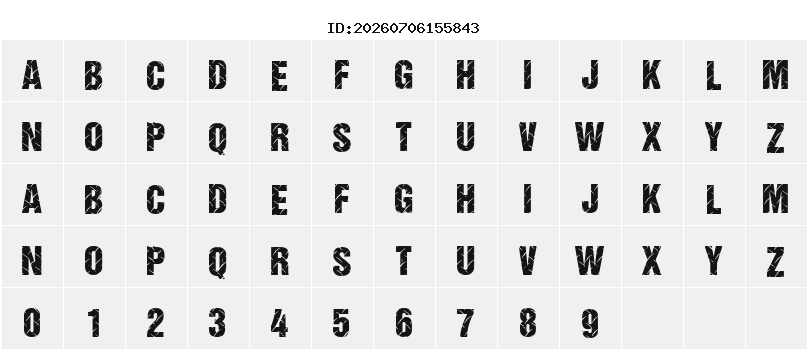
DiamondPlate Preview
• Font Name: DiamondPlate
• Font ID: DiamondPlate:Version 1.00
• Full Font Name: DiamondPlate
• Version: Version 1.00 April 13, 2012, initial release
• PostScript Name: DiamondPlate
• Character Count: 63
• Designer: max infeld
• Manufacturer: xerographer.com
• Description: made at empire coffee
About DiamondPlate.ttf
DiamondPlate.ttf is a modern, elegant sans-serif font designed for ultimate readability and visual harmony. Perfect for branding, headlines, web design, and print materials.